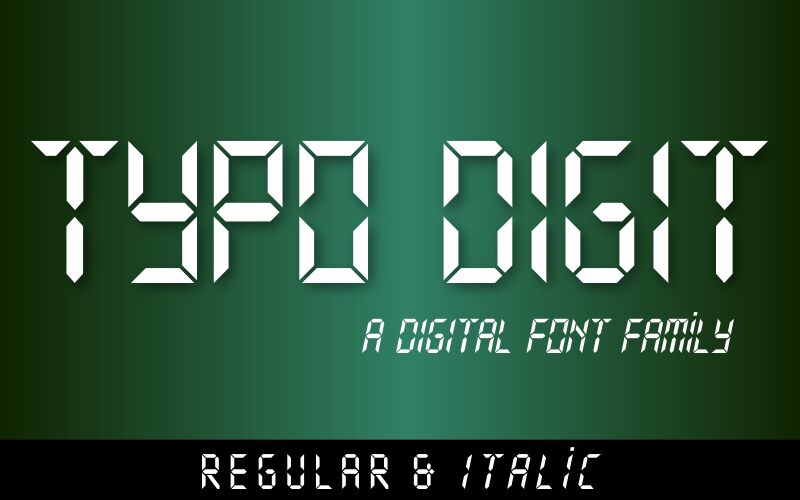
Typo Digit Demo Italic
Typo Digit Italic font by Studio Typo is a display typeface with condensed widths and other interesting features. The Korean designer followed a digital theme when creating this font, which resulted in futuristic shapes built from angles and straight lines. It is as if Typo Digit Italic was constructed entirely of geometric shapes, imbuing it with an entirely unique modern vibrant look.
Making the best out of this font begins with having appropriate use cases where its niche artwork would shine best. Possible applications entail posters, book covers, album art, web design handers and footers, magazine titles/headings, branding materials such as business cards and labels, social media graphics(mainly cover/profile pictures), packaging designs(product labeling/stickers), or even apparel design(t-shirts/merchandise).